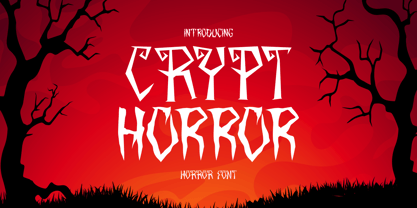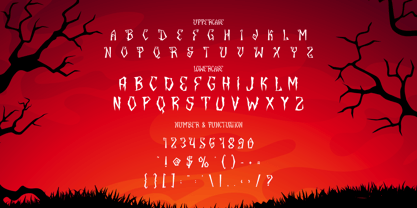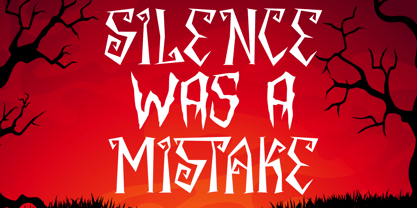
Crypt Horror
by Shanaf
The Crypt Horror Font Family was designed by Yesie Erma Yunita and published by Shanaf. Crypt Horror contains 1 styles. More about this family
Crypt Horror is a terrifyingly sharp horror display font built to deliver chills with every letter. Designed with twisted, jagged serifs and uneven cuts, it evokes the eerie feeling of haunted woods, cursed rituals, and sinister secrets. Each letterform screams intensity—some with claw-like curves, others with gothic-style spikes—perfect for horror-themed compositions. The angular, high-contrast strokes add a sinister edge, while the erratic baselines bring chaotic energy to your layout. This font was engineered for maximum visual impact in horror posters, Halloween merchandise, creepy book covers, and eerie movie titles.
The Crypt Horror font includes uppercase and lowercase characters, numerals, and punctuation symbols—each crafted to look like they’ve crawled out from the grave. Its versatility makes it ideal for branding campaigns, sticker designs, dark-themed invitations, thriller headlines, and edgy underground band logos. Whether you’re designing a black metal zine or a haunted escape room flyer, Crypt Horror ensures your message cuts through the darkness with style. Step into the shadows and let your designs scream.
Designers: Yesie Erma Yunita
Current Foundry: Shanaf